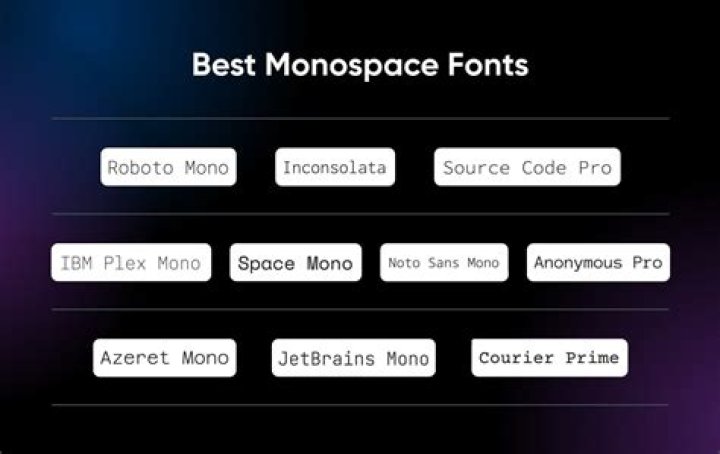
What is the most popular monospace font?
Fira Code (popular choice) Undoubtably the most commonly used monospace font ever, Fira Code is a spin on Fira Mono.
What’s a good monospace font?
Examples of monospaced fonts include Courier, Lucida Console, Menlo, Monaco, Consolas, Inconsolata and Source Code Pro.
Which is the best coding font?
10 Best Programming Fonts to Save you from Eyestrain
- Input. Input is a programming font that was designed from the ground up to make software developers’ lives easier.
- Fira Code.
- Consolas.
- Source Code Pro.
- Monoid.
- Ubuntu Mono.
- Sudo.
- Droid Sans.
Is monospace easy to read?
These monospace fonts designed for programmers make code easier to read and understand. A monospace font also makes it easier to achieve indentation and vertical alignment, which are critical for code legibility.
Why is code in monospace?
In summary: Monospaced typefaces are used for programming because they are widely believed to be better due to common treatment of skinny letters and punctuation, and alignment.
Is monospace a good font?
That may look unnatural for other types of text and typography, but it’s perfect for coding. That’s because reading numbers and punctuation marks is a lot easier when they’re evenly spaced. A monospace font also makes it easier to achieve indentation and vertical alignment, which are critical for code legibility.
Which font is best for Python?
Best Coding Fonts
- DejaVu Sans Mono.
- Source Code Pro.
- Monaco.
- Droid Sans Mono.
- Ubuntu Sans Mono.
- M+
Should I use monospace fonts?
2 Answers. Monospaced typefaces do reduce legibility, albeit by a margin. In Universal Principles of Design, the entry on legibility states: Proportionally spaced typefaces are preferred over monospaced.
Are monospace fonts good?
What is a monospaced font?
A monospaced font is a font whose characters each occupy the same amount of horizontal space. They are different from variable-width fonts, where the letters and spacings have different widths. There are monospaced serif fonts, monospace sans serif fonts, condensed monospace fonts, and so on.
What is the difference between proportional and monospaced font characters?
As you can see, the monospaced font characters are all contained within the equally-spaced grids, whereas the proportional font characters overlap. Monospaced fonts were very popular in the early days of computers and typewriters as they fitted in with the mechanical and graphical requirements of the day, but they’ve now fallen out of favor.
Is there a Monospace font in Bergen?
You won’t be able to resist Bergen Mono even if you try. This six-piece collection of monospace sans serif fonts is just the latest addition to the Bergen font bundle. It has Extended Latin, Cyrillic (including Bulgarian character set) and Greek language support included.
Is monolisa a good font?
MonoLisa Designed specifically to improve developers’ productivity and reduce fatigue, MonoLisa is a wonderfully clear font, which ensures all glyphs are the same width for readability but manages not to be boring. With a feature-set boasting increased character width, clear distinction and excellent reading flow, we think this is a winner.